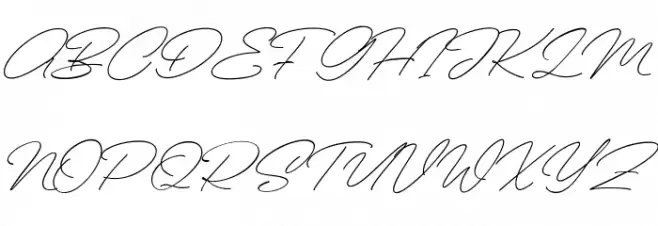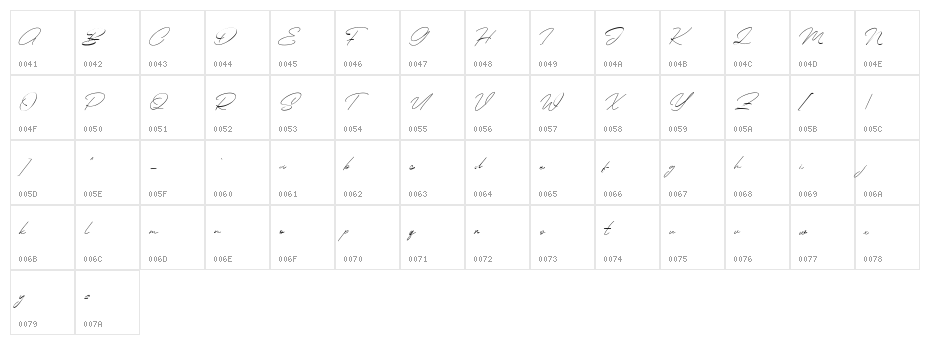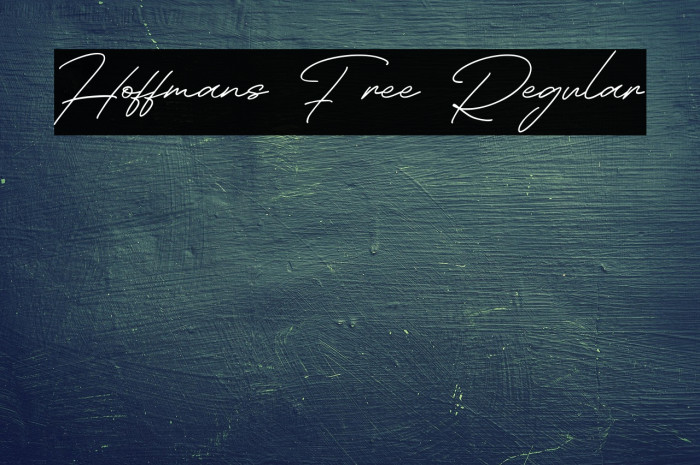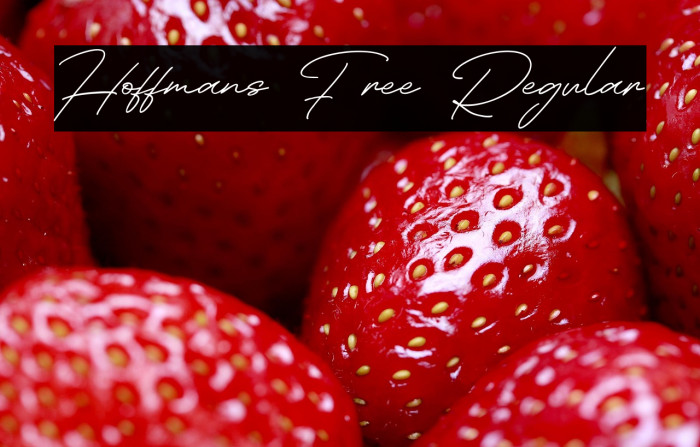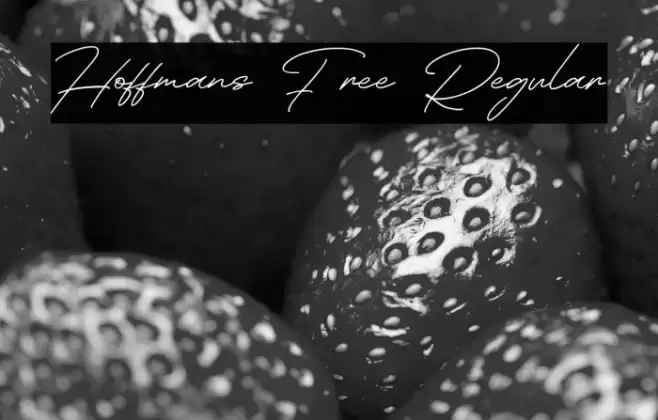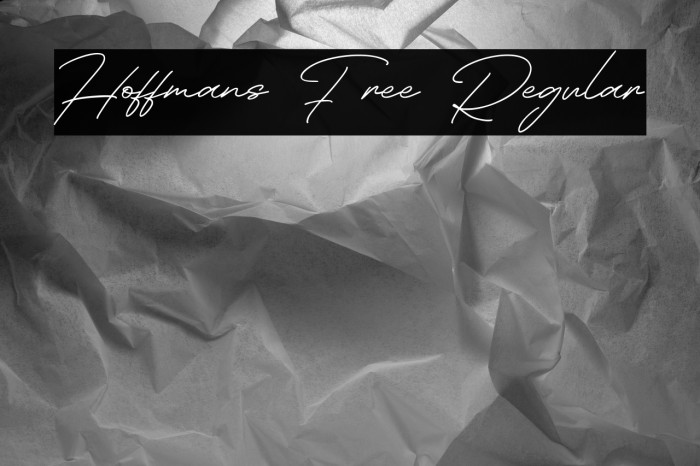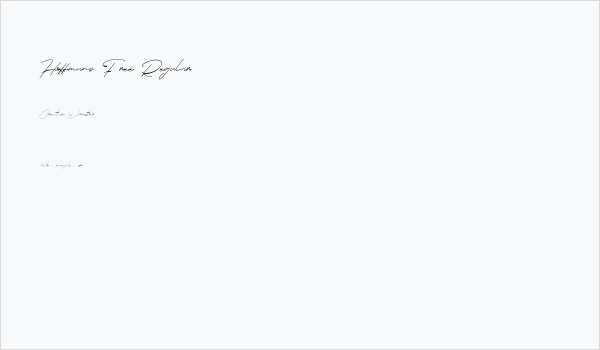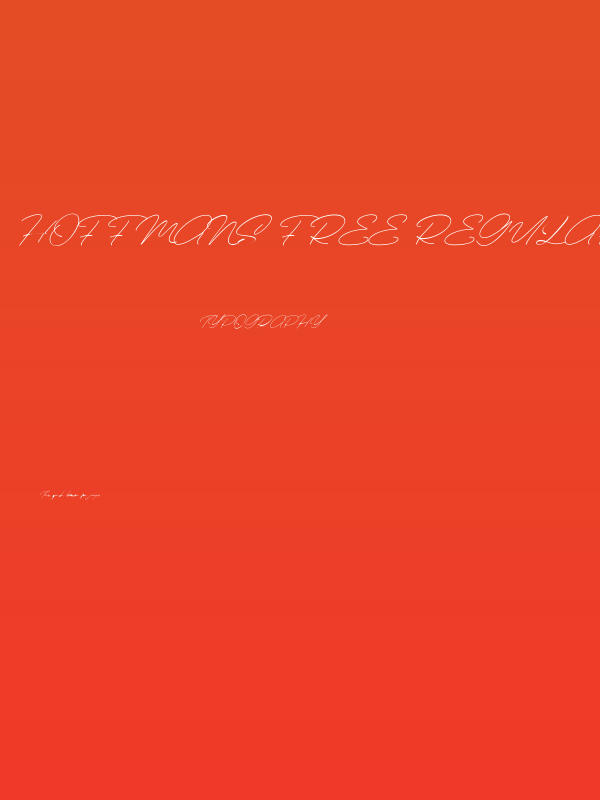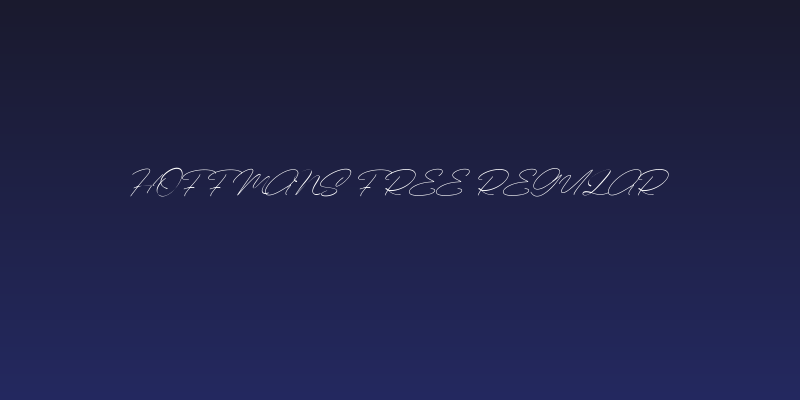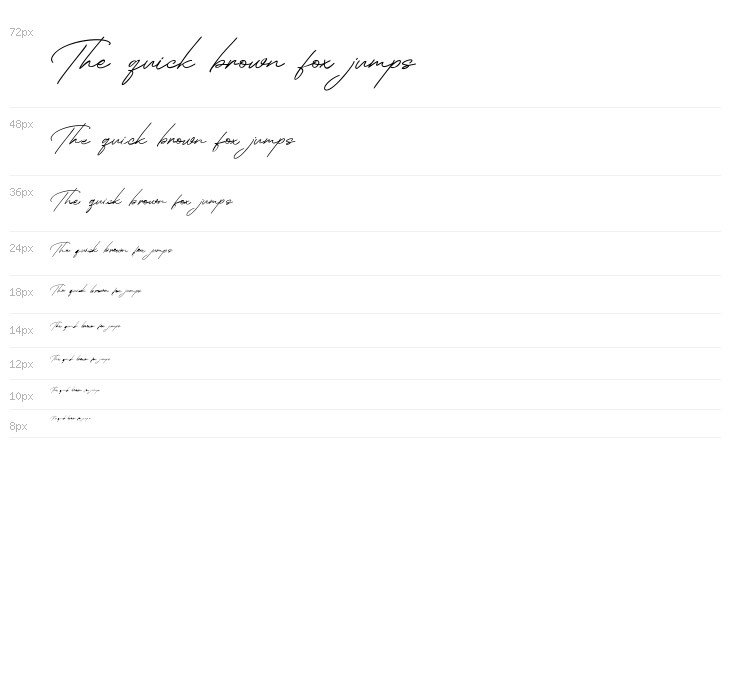
Hoffmans Free Regular Font
Hoffmans Free Regular Description
This elegant script font features a flowing, cursive style with smooth, continuous strokes that mimic the fluidity of handwriting. Each letter is intricately connected, creating a seamless and sophisticated appearance. The font exudes a sense of grace and refinement, making it ideal for formal invitations, elegant branding, and artistic projects. Its delicate lines and gentle curves add a touch of class and sophistication, while maintaining readability. The font's design is both timeless and versatile, suitable for a variety of creative applications where a personal, handwritten touch is desired.
| Overall Style | Elegant, Sophisticated |
| Use Case | Invitations, Branding, Artistic projects |
| Proposed Projects | Ideal for wedding invitations, elegant branding, artistic projects, and personal stationery. |